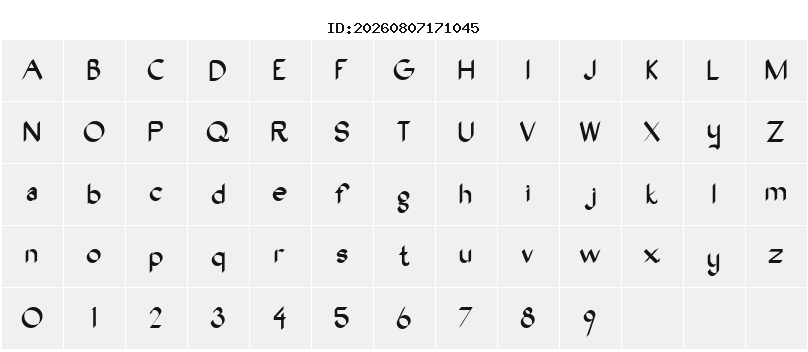
• Font Name: Oak
• Font Style: Wood
• Full Font Name: Oak Wood
About Oak.ttf
Oak.ttf is a modern, elegant sans-serif font designed for ultimate readability and visual harmony. Perfect for branding, headlines, web design, and print materials.